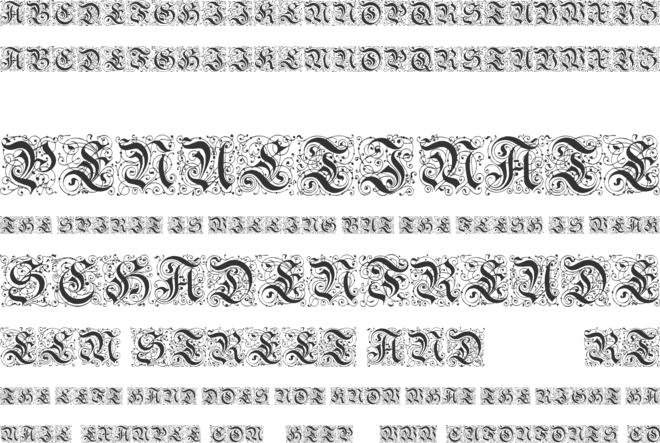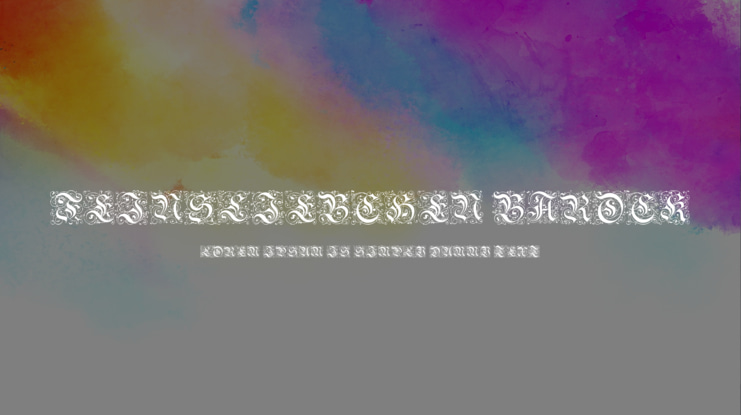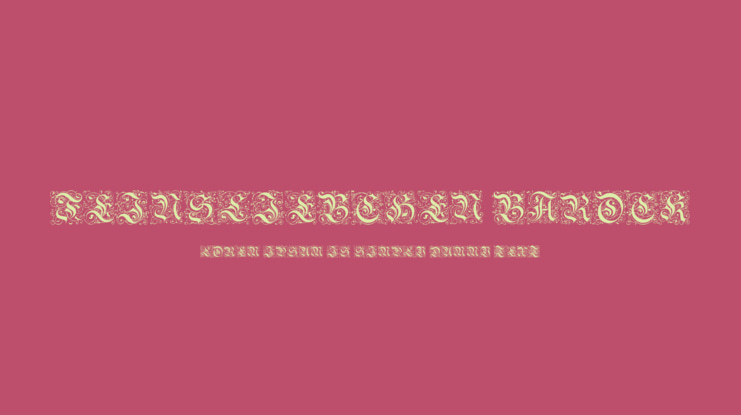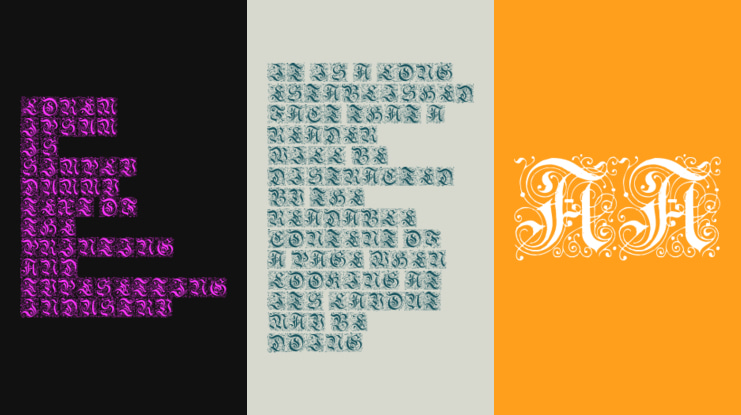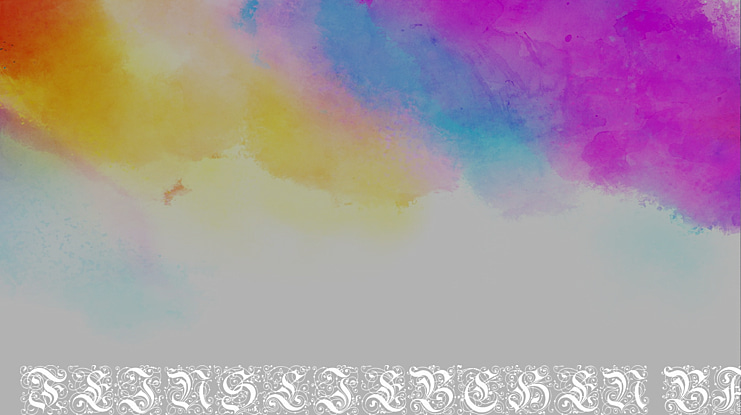
Feinsliebchen Barock Font
Scanned from paper Feinsliebchen Barock is the thin form of a Baroque initials typeface which is known as Kanzlei Initialen. The accompanying font in the illustration below is Germanica (original name Fette Kanzlei) which can be downloaded from www.dafont.com as well. The font Feinsliebchen Barock is public domain, free for all uses, commercial and private.